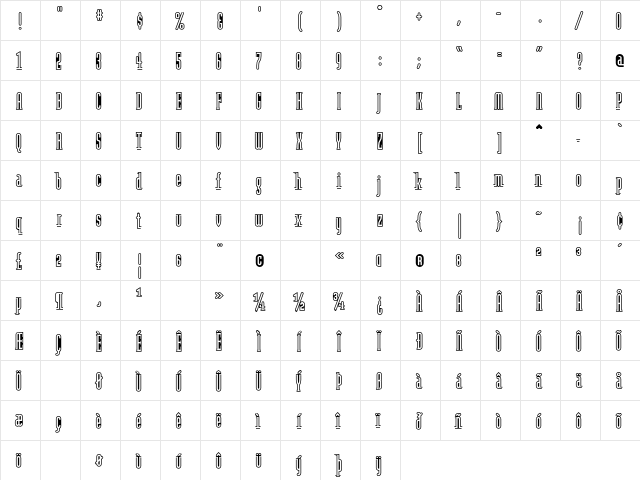
ModulaOutlined Regular
Design Context for ModulaOutlined Typeface
ModulaOutlined is built around its visual character rather than neutral utility — its distinctive forms are designed to make an impression at display sizes.
Font Pairing: Pair with a clean neutral sans-serif for body copy to let ModulaOutlined's character lead without overwhelming the composition.
Pro Tip: Use ModulaOutlined exclusively at display sizes — it was designed to be seen, not read at length. Let a neutral companion handle body copy.